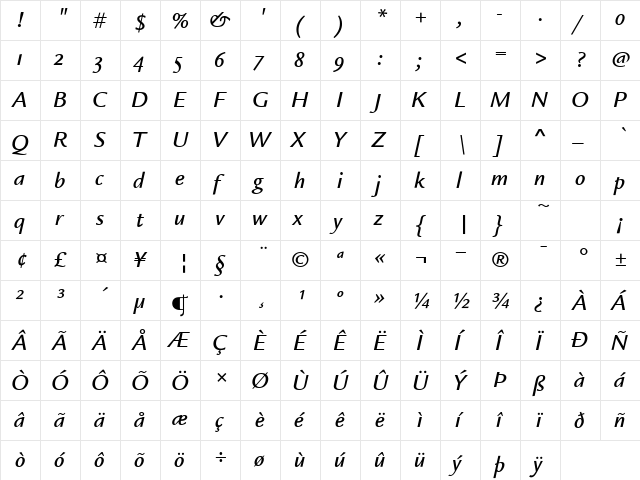
LegacySansITCOS-Medium MediumItalic
Design Context for LegacySansITCOS-Medium Typeface
LegacySansITCOS-Medium is a composed and adaptable typeface that performs quietly and consistently across a wide range of design contexts. Its italic angle brings a sense of urgency and motion to the letterforms.
Pro Tip: Use LegacySansITCOS-Medium for emphasis, pull quotes, and subheadings where its slanted energy can add rhythm to the layout.